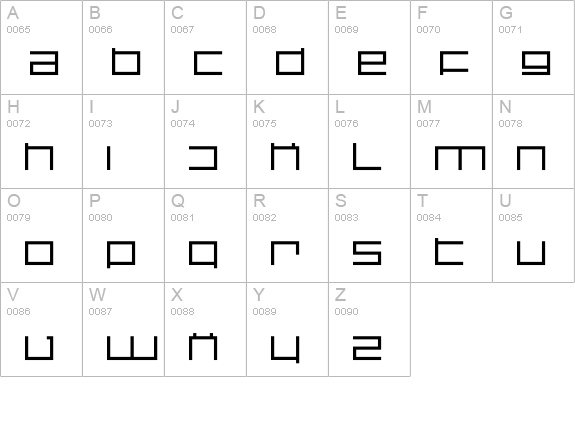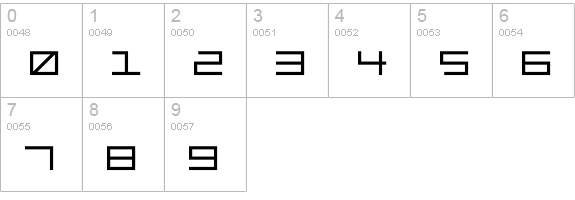
DS SQR55 font is a unique and stylish typeface that adds a modern touch to any design project. With its clean lines and geometric shapes, this font is perfect for creating eye-catching headers, logos, and posters. The bold and distinctive look of DS SQR55 makes it stand out from other fonts, making it ideal for making a statement. The best part about DS SQR55 font is that it is available for free download at FontsMarket.com. This means you can easily access this high-quality font without any cost, allowing you to enhance your designs without breaking the bank. Whether you are a professional designer or a hobbyist, DS SQR55 font offers a versatile and dynamic option for your creative projects. Download it today and elevate your designs with this stunning font!